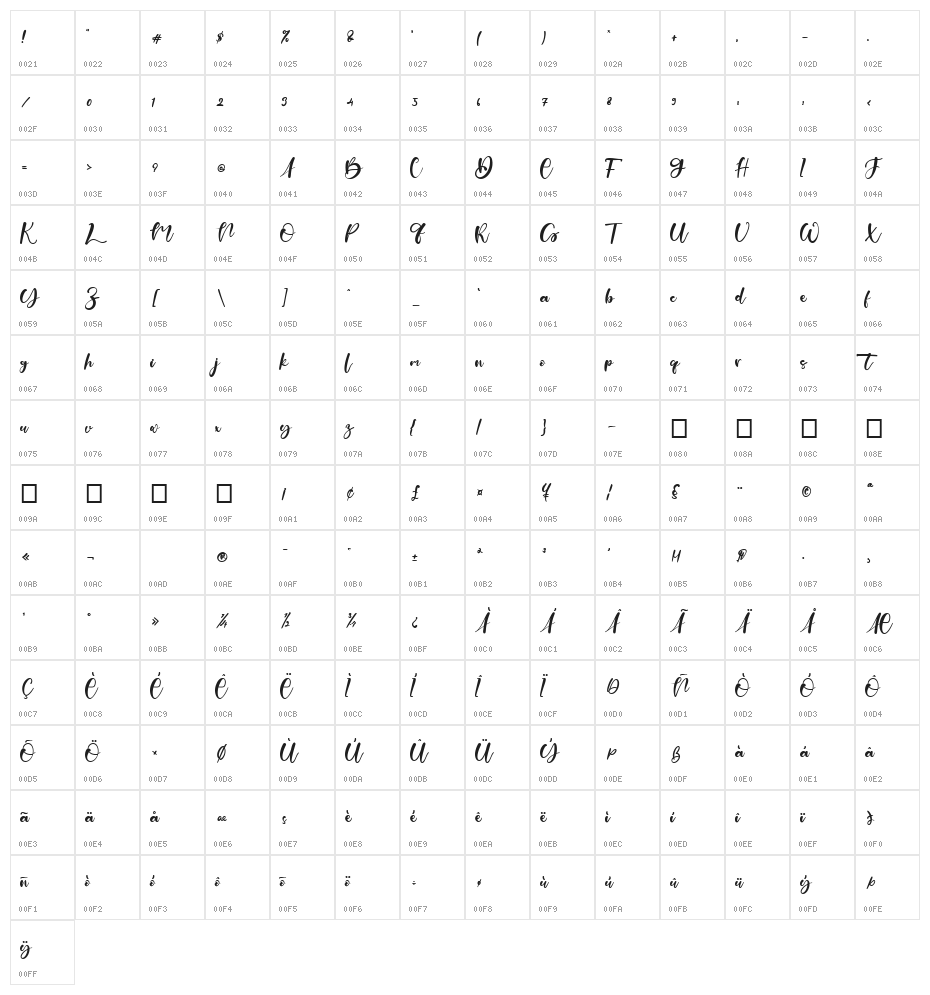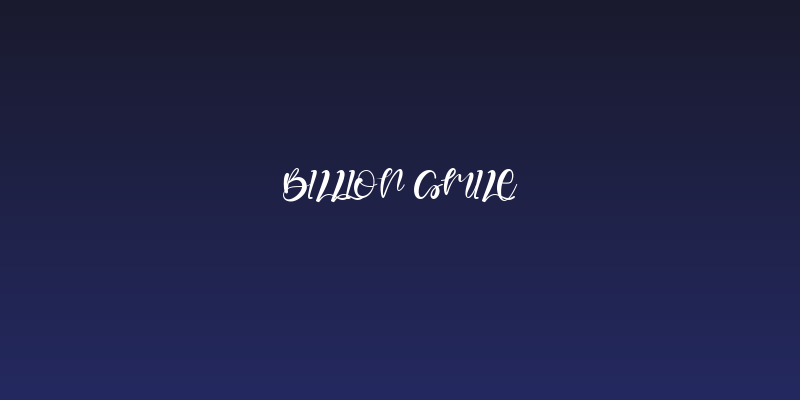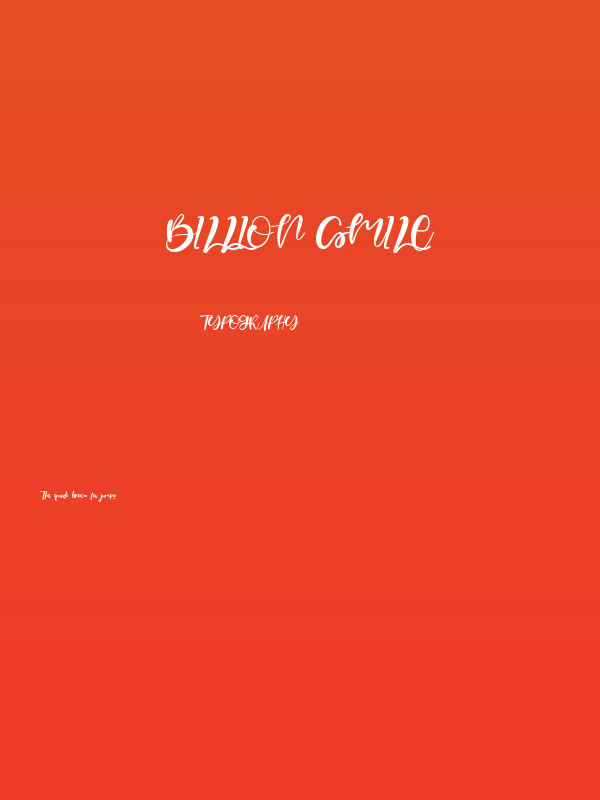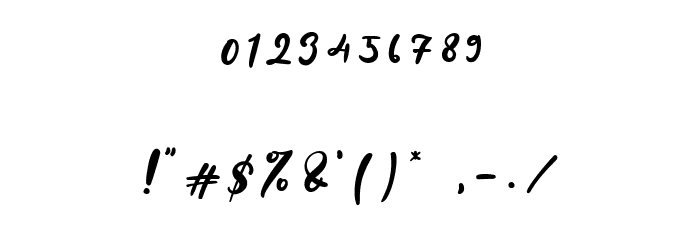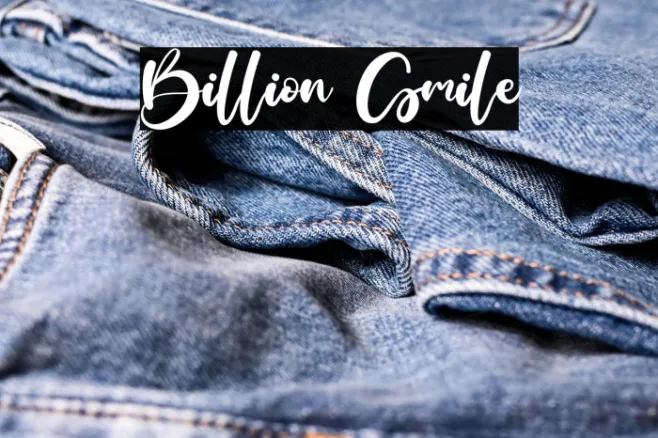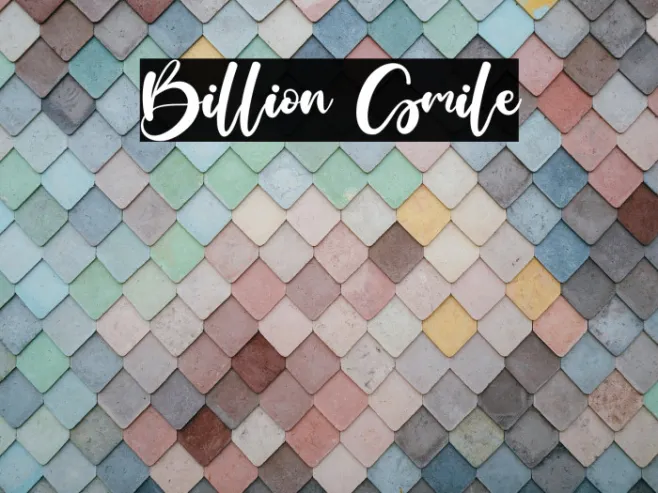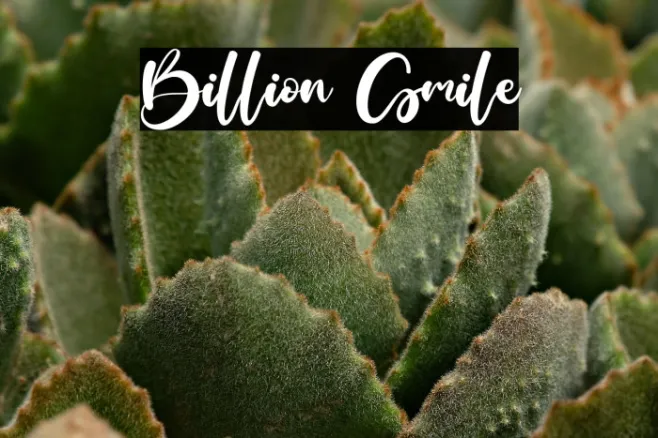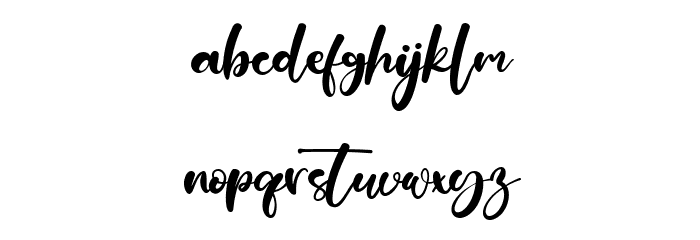
Billion Smile Font
Billion Smile Description
This font exudes a playful and elegant charm with its flowing script style. The characters are crafted with smooth, continuous strokes that mimic the fluidity of handwriting. Each letter is distinct yet harmoniously connected, creating a cohesive and visually appealing text. The uppercase letters are bold and slightly exaggerated, adding a touch of drama, while the lowercase letters maintain a graceful and consistent flow. The numerals and special characters are designed to match the overall aesthetic, ensuring versatility across various uses. This font is perfect for projects that require a personal and artistic touch.
| Use Case | Logos, Invitations, Social Media |
| Proposed Projects | Ideal for wedding invitations, greeting cards, branding, and social media graphics. |